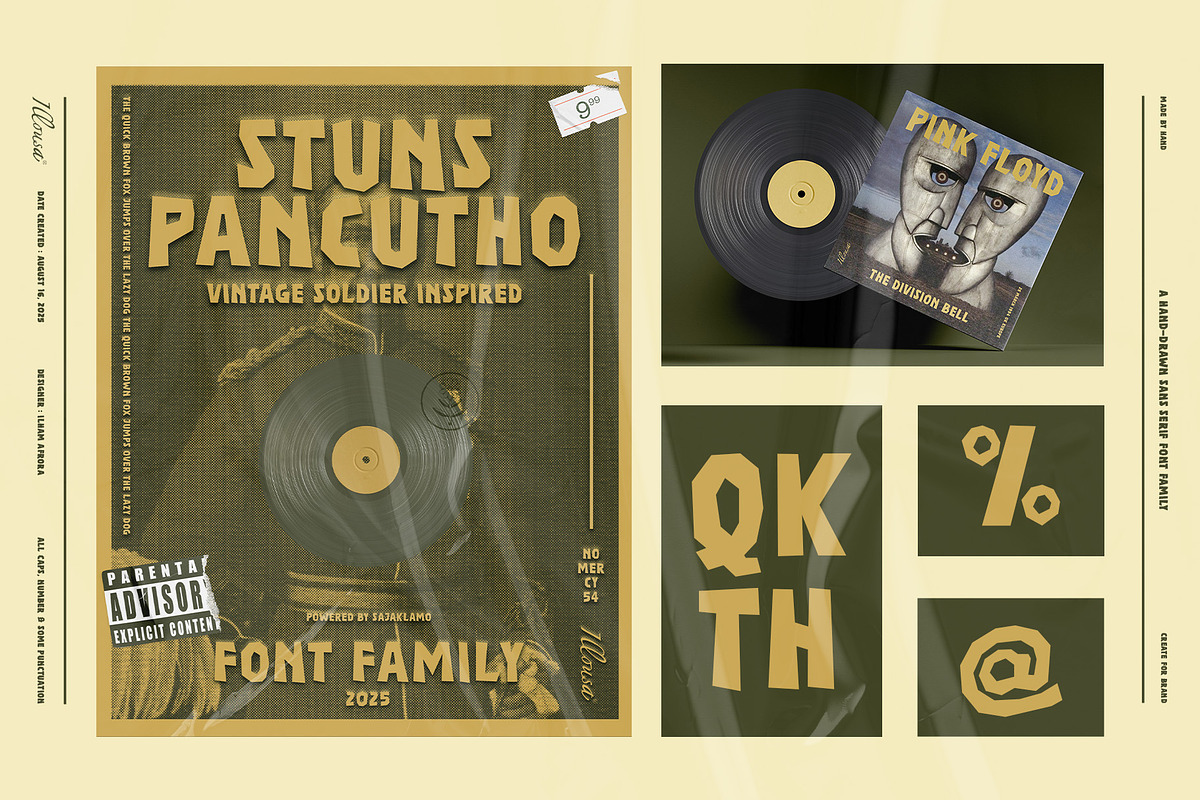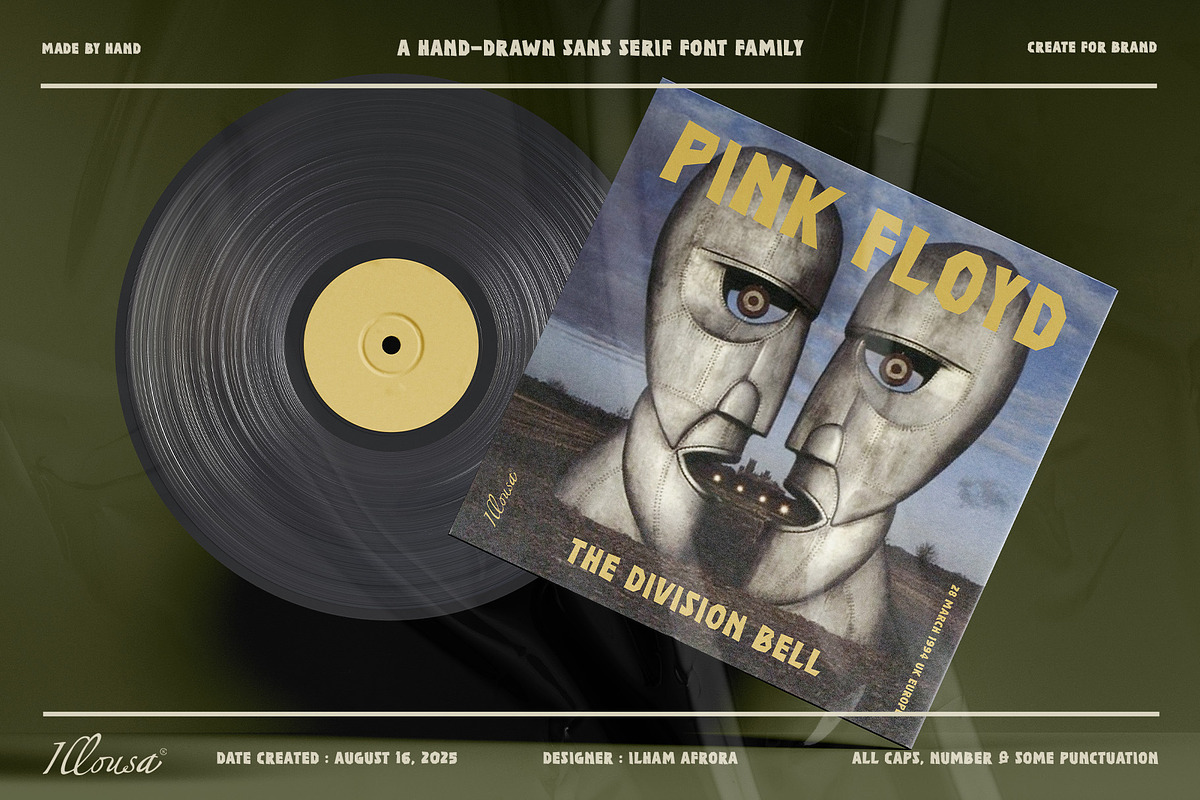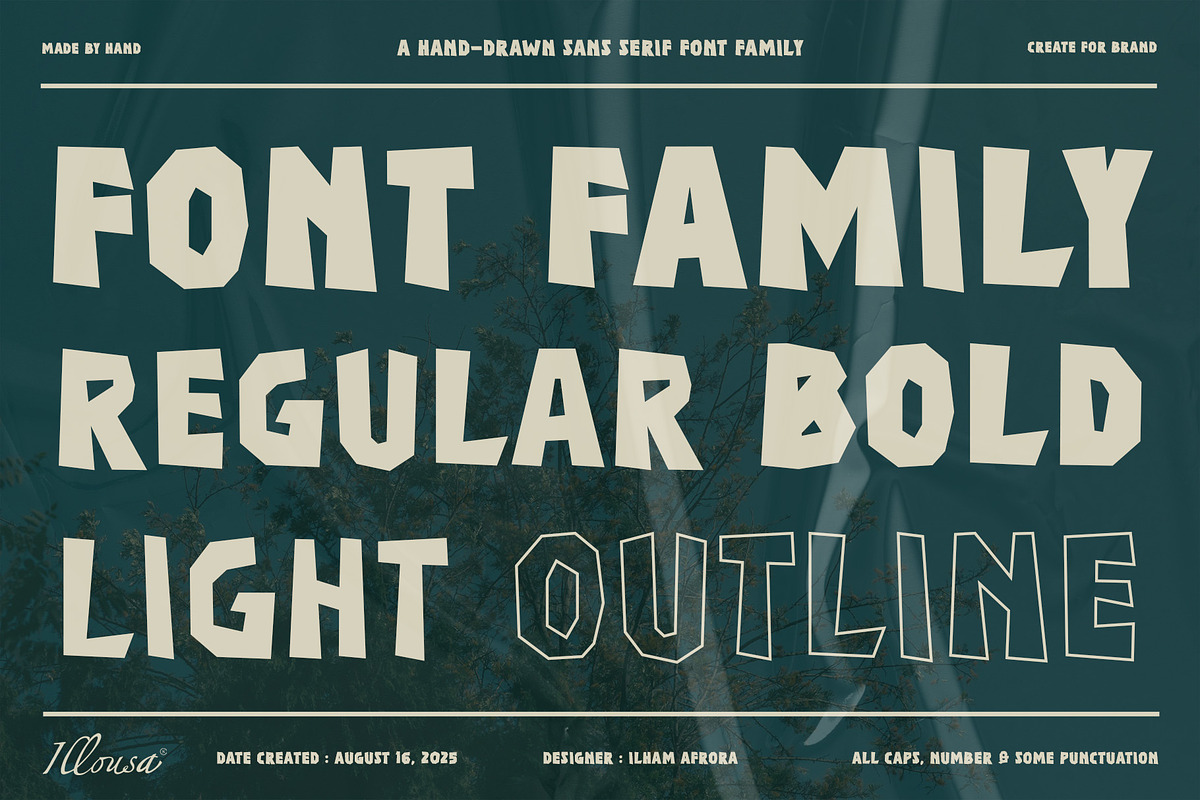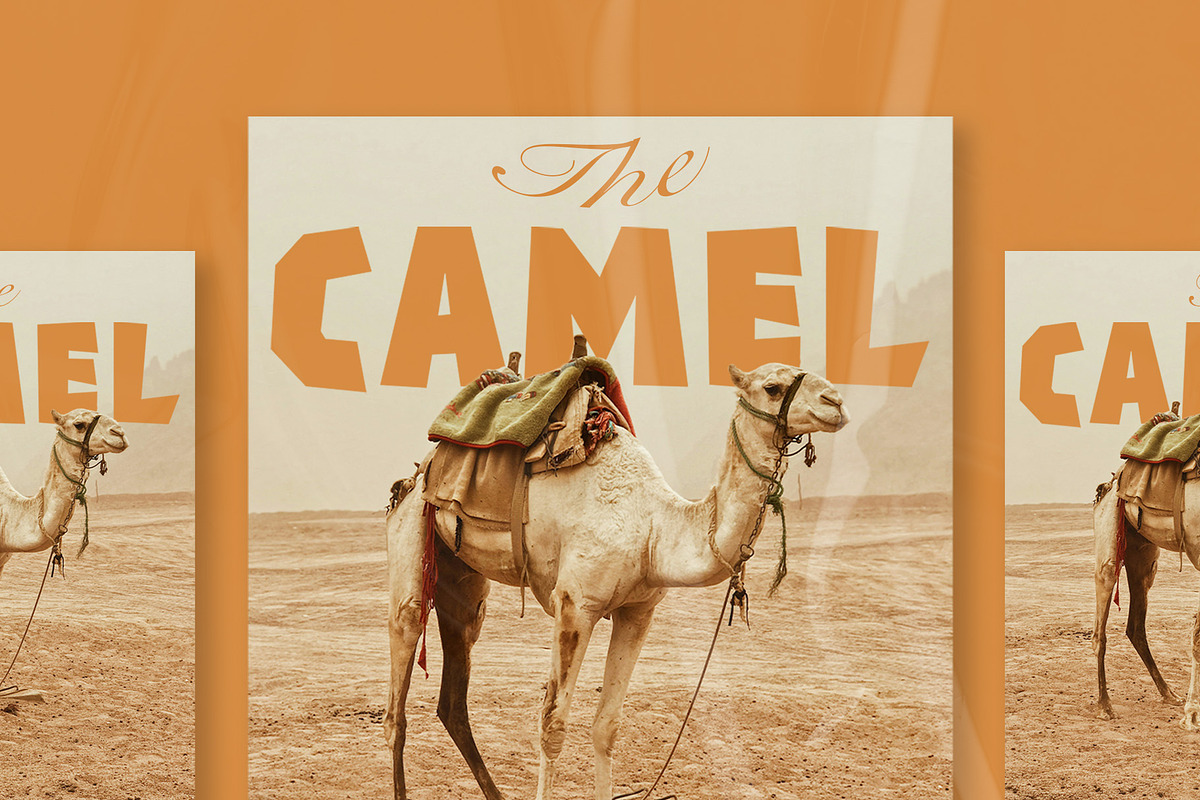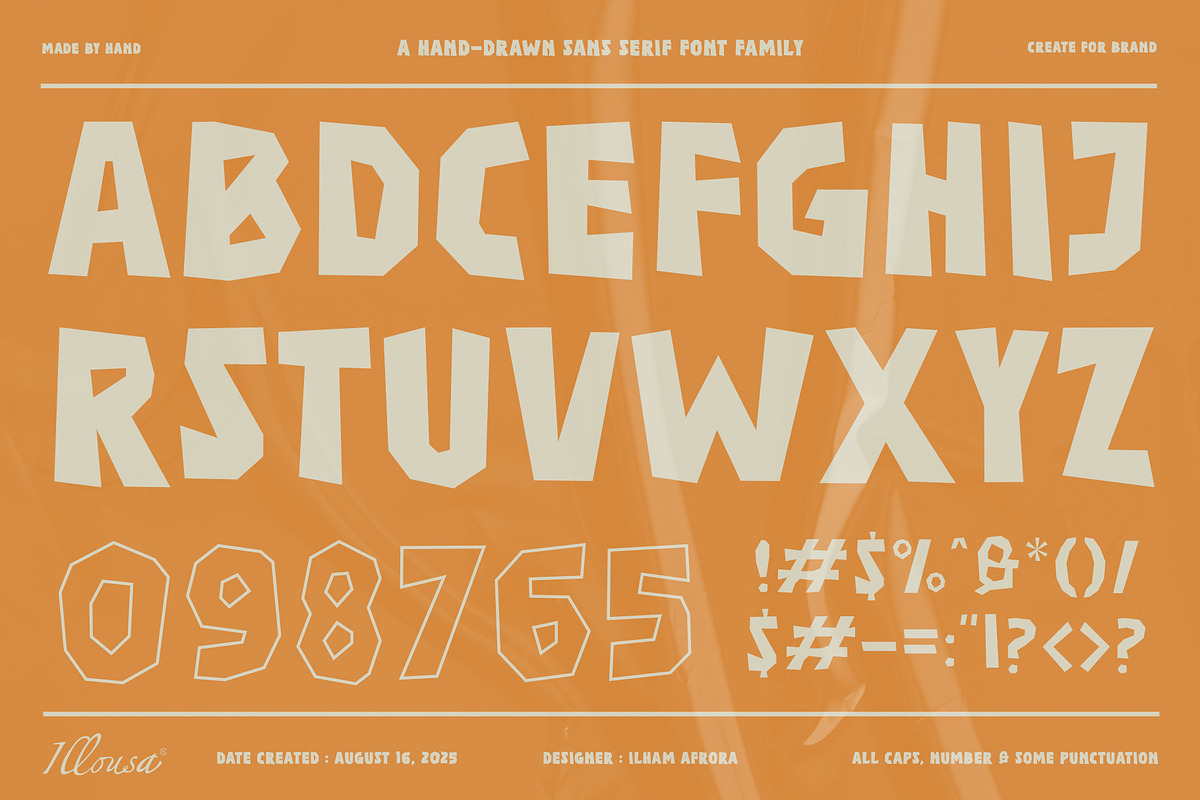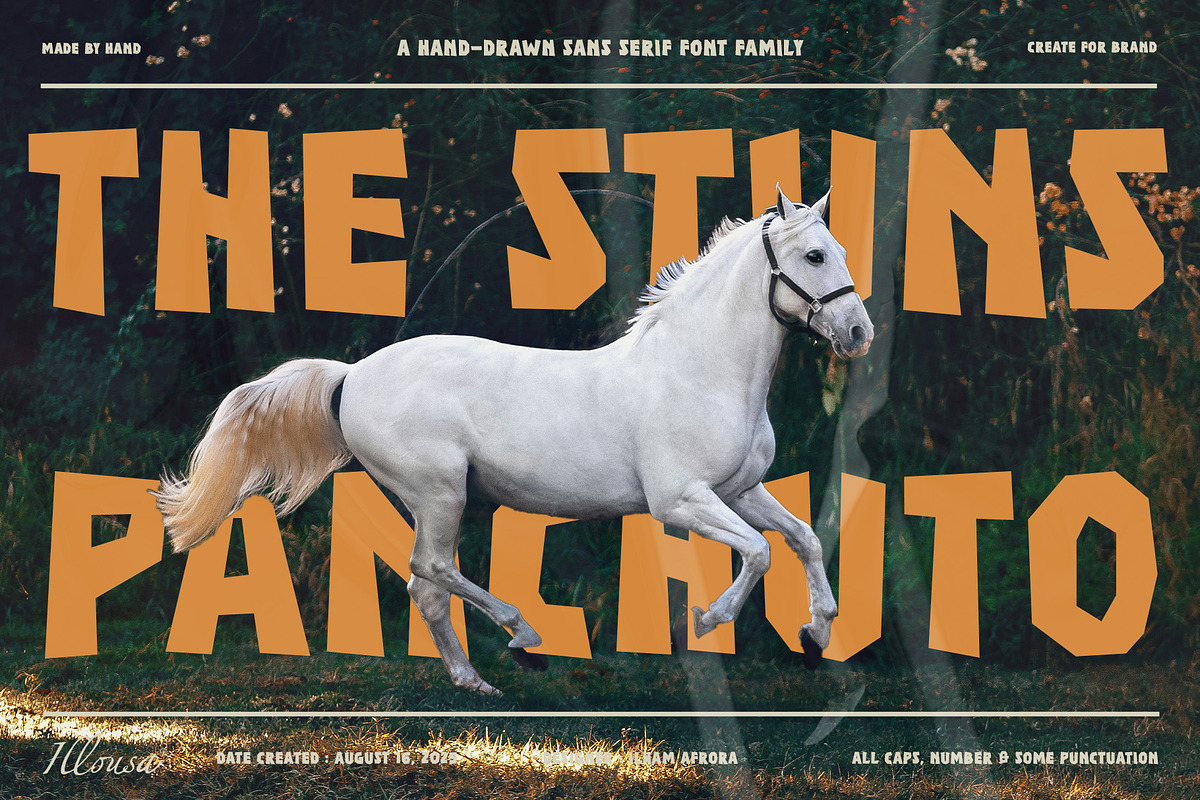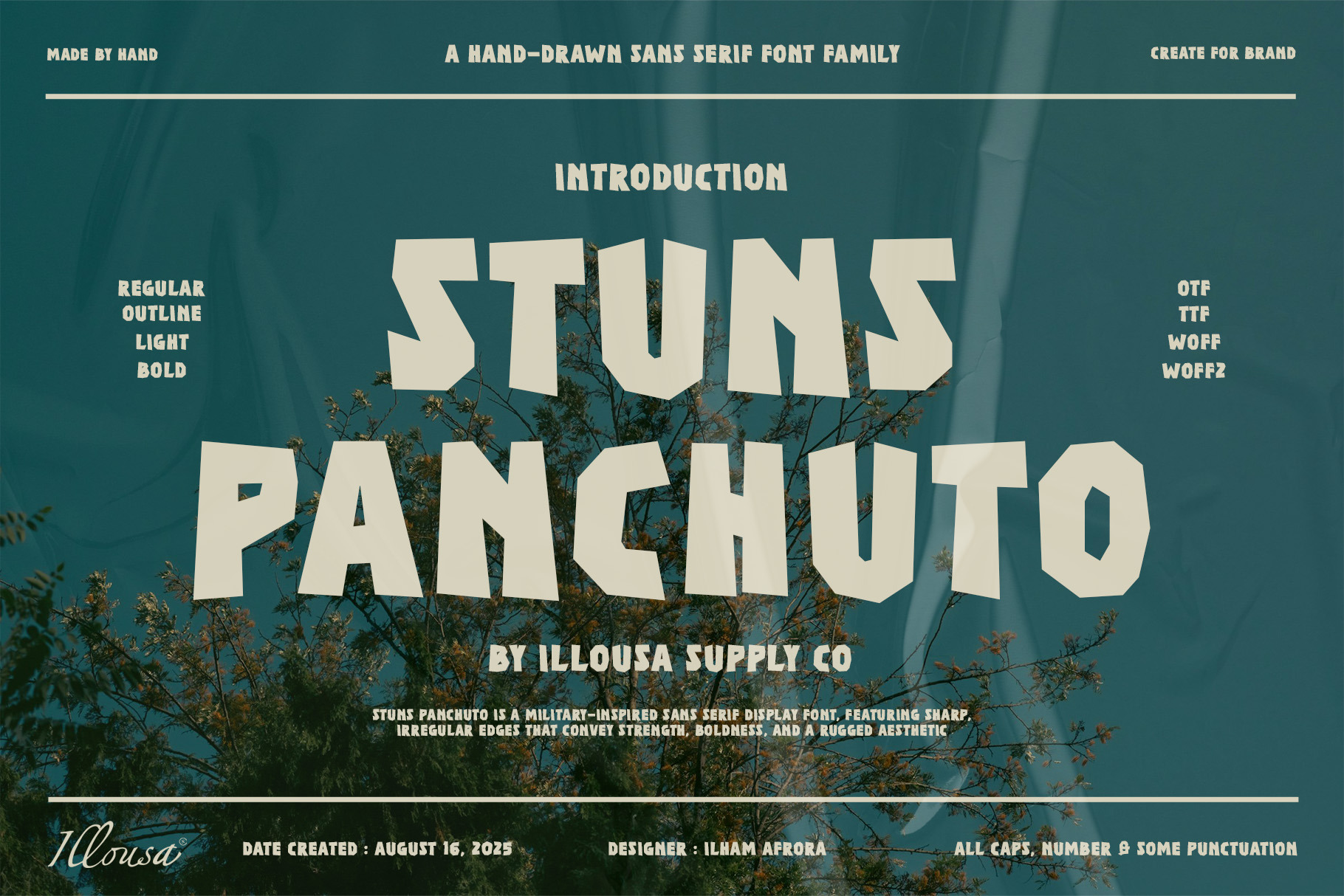
Stuns Panchuto | Display Font
INTRODUCTION
Stuns Panchuto Display / Sans - Serif Font
Stuns Panchuto is a bold sans serif display font inspired by strong, rugged, and military-style typography. Designed to deliver impact and confidence, this font is perfect for headlines, posters, apparel, and branding projects that need a powerful visual presence.
KEY FEATURES
Bold, strong, and rugged sans serif style Display font designed for headlines & titles Sharp edges with distinctive character Clean and professional look for branding
- 4 Font Styles: Light | Regular | Bold | Outline
- Uppercase letters
PERFECT FOR
- Poster & headline typography
- Apparel & merchandise design
- Logo & branding projects
- Social media & advertising visuals
- Editorial and promotional design